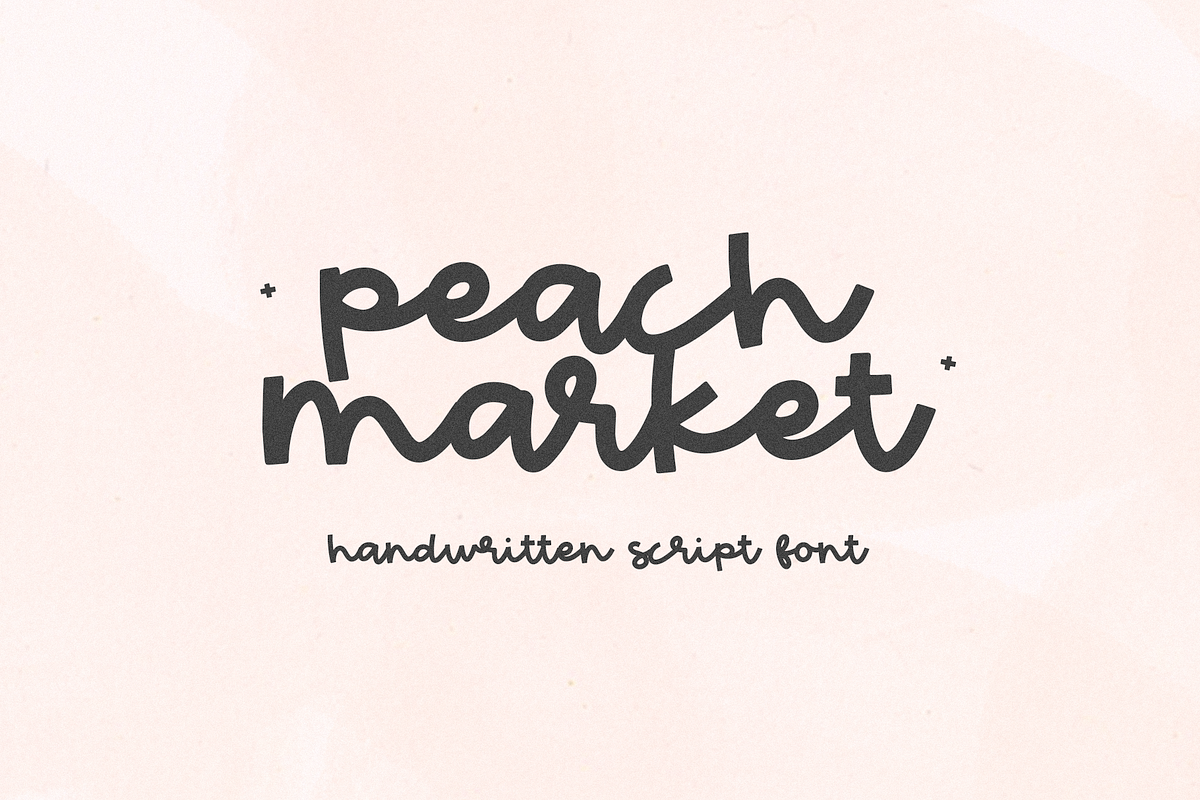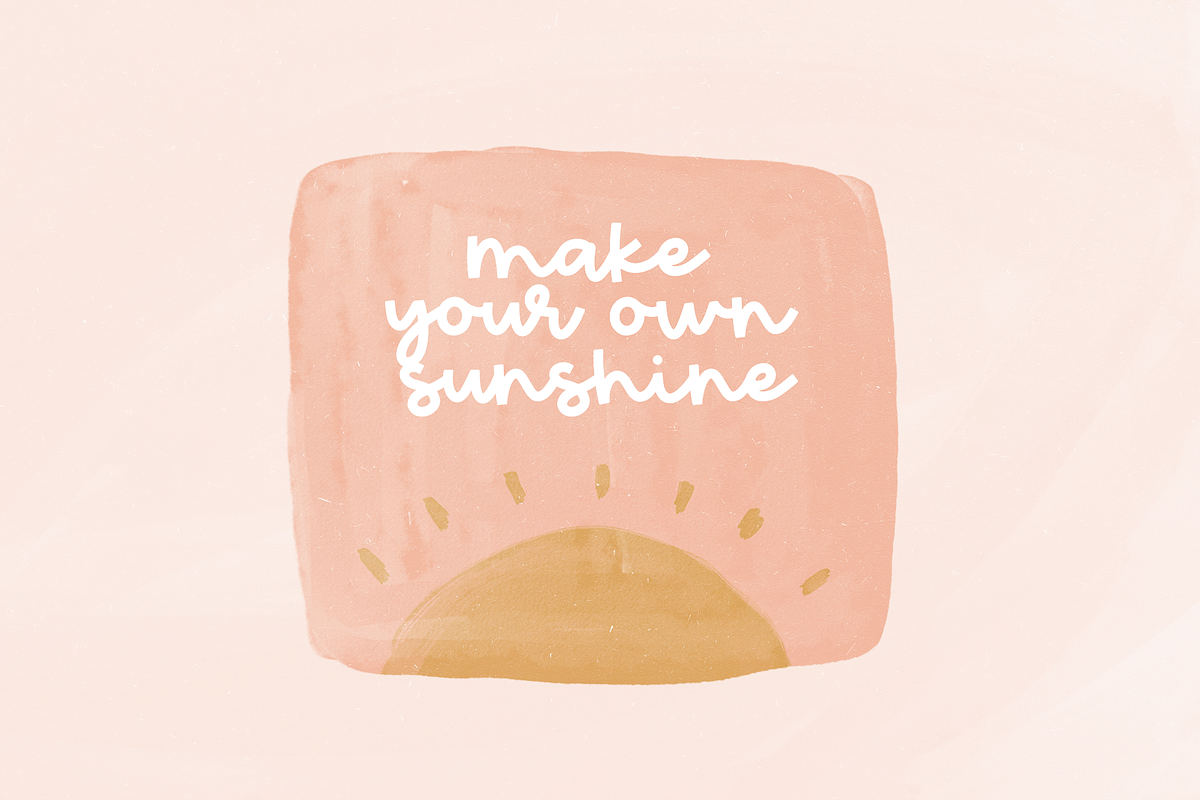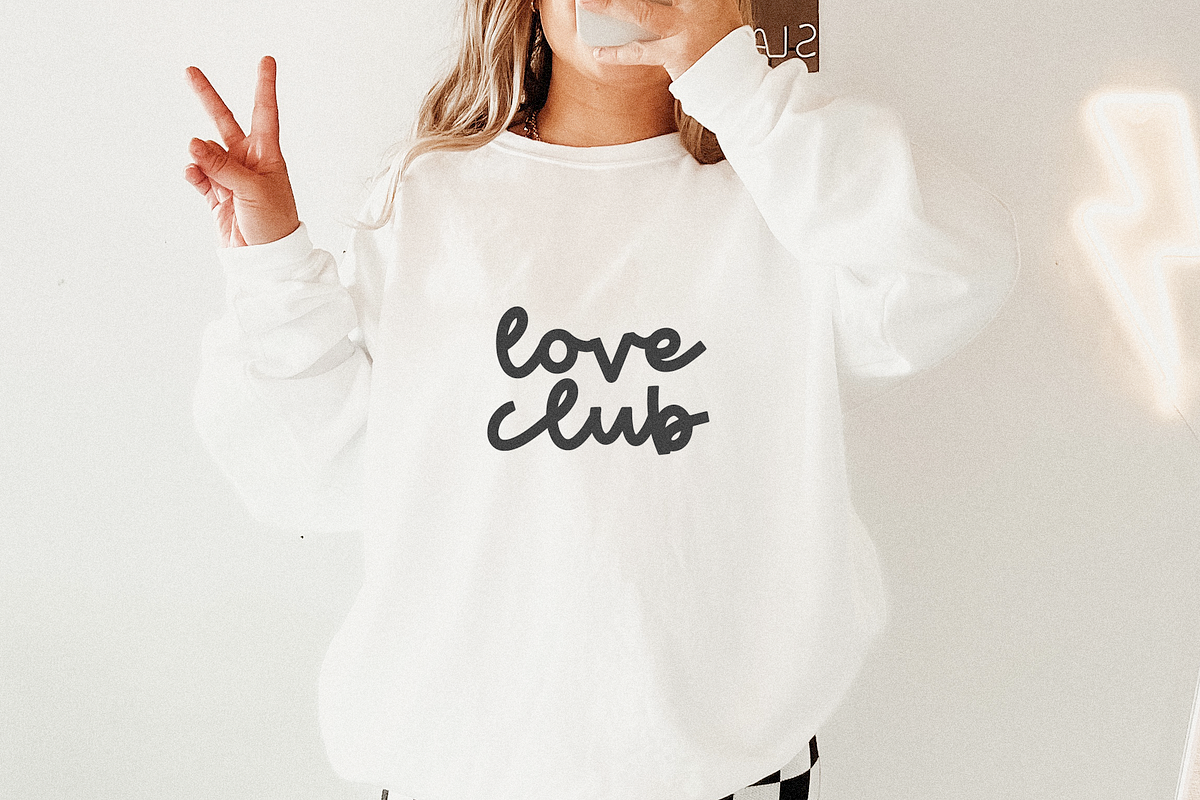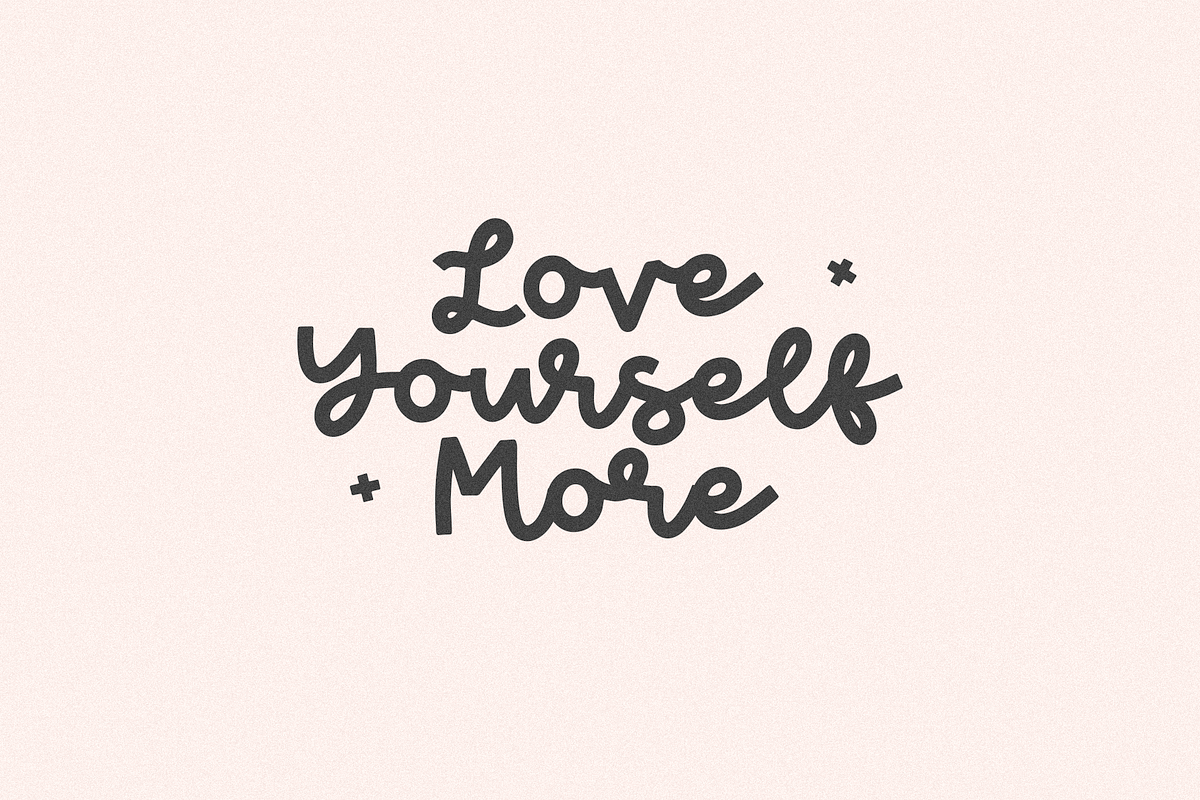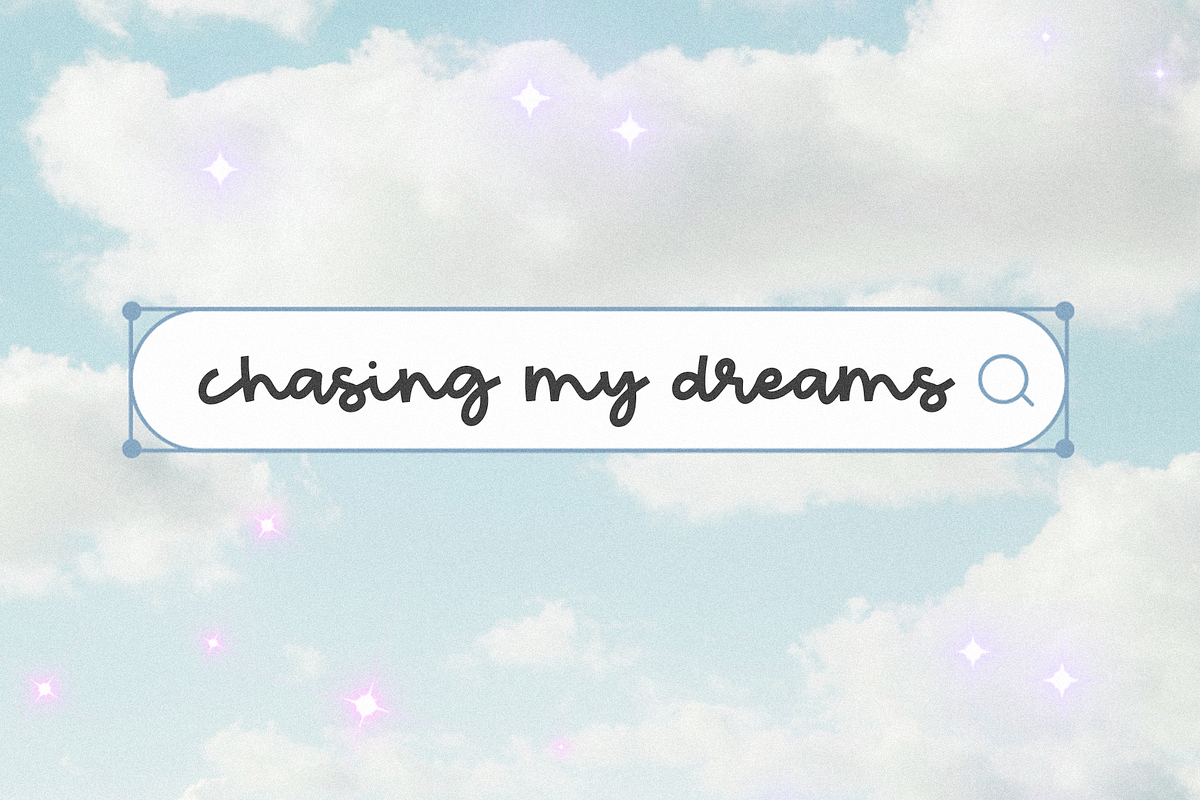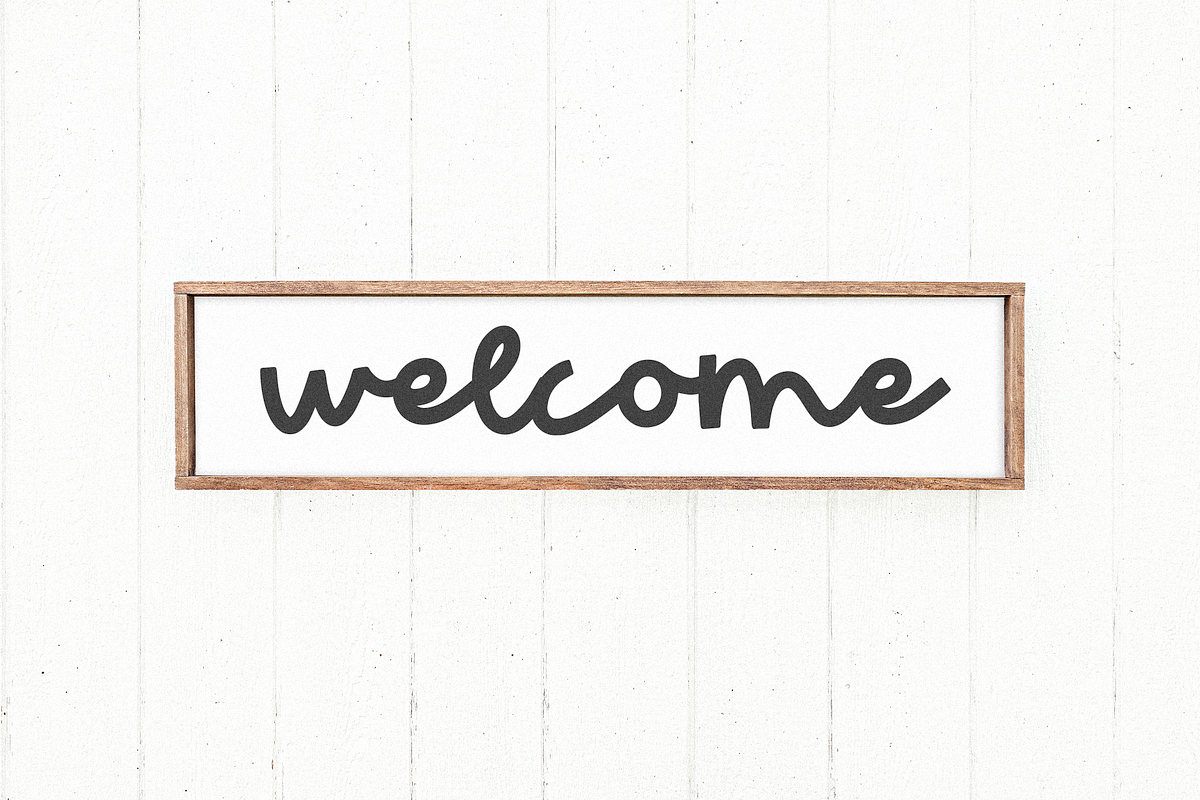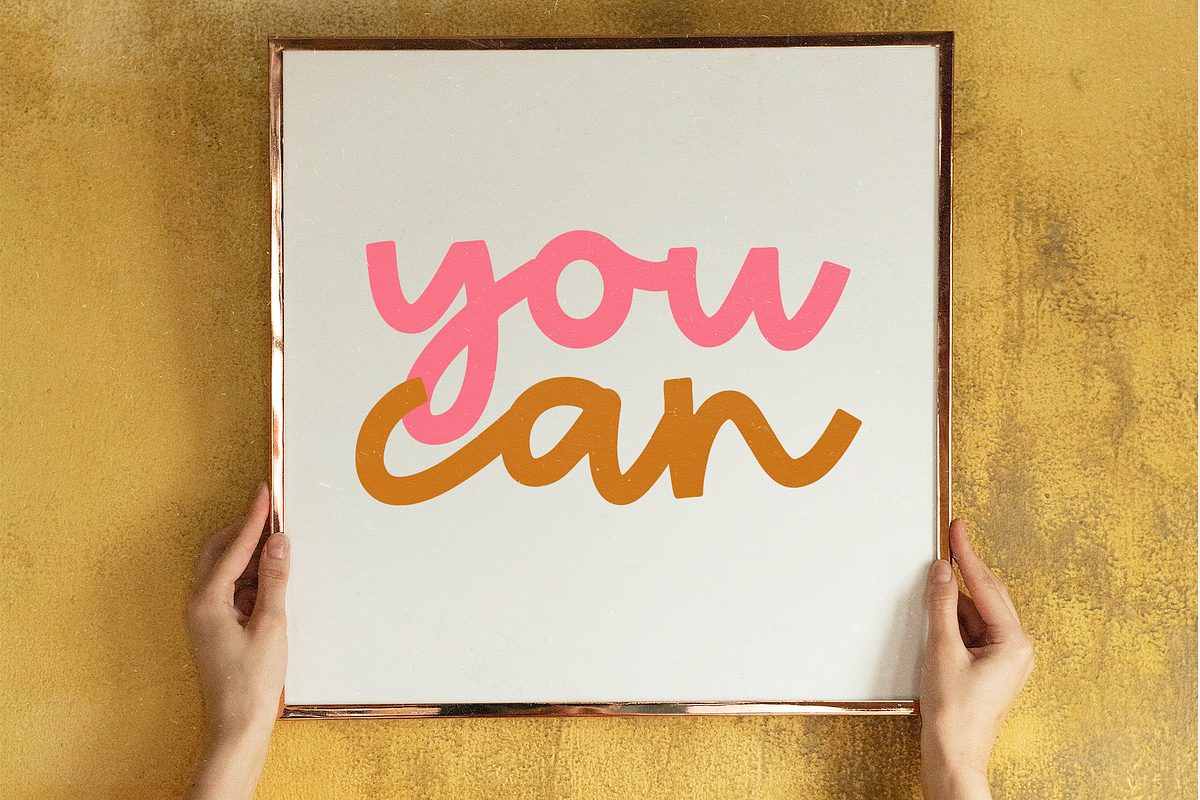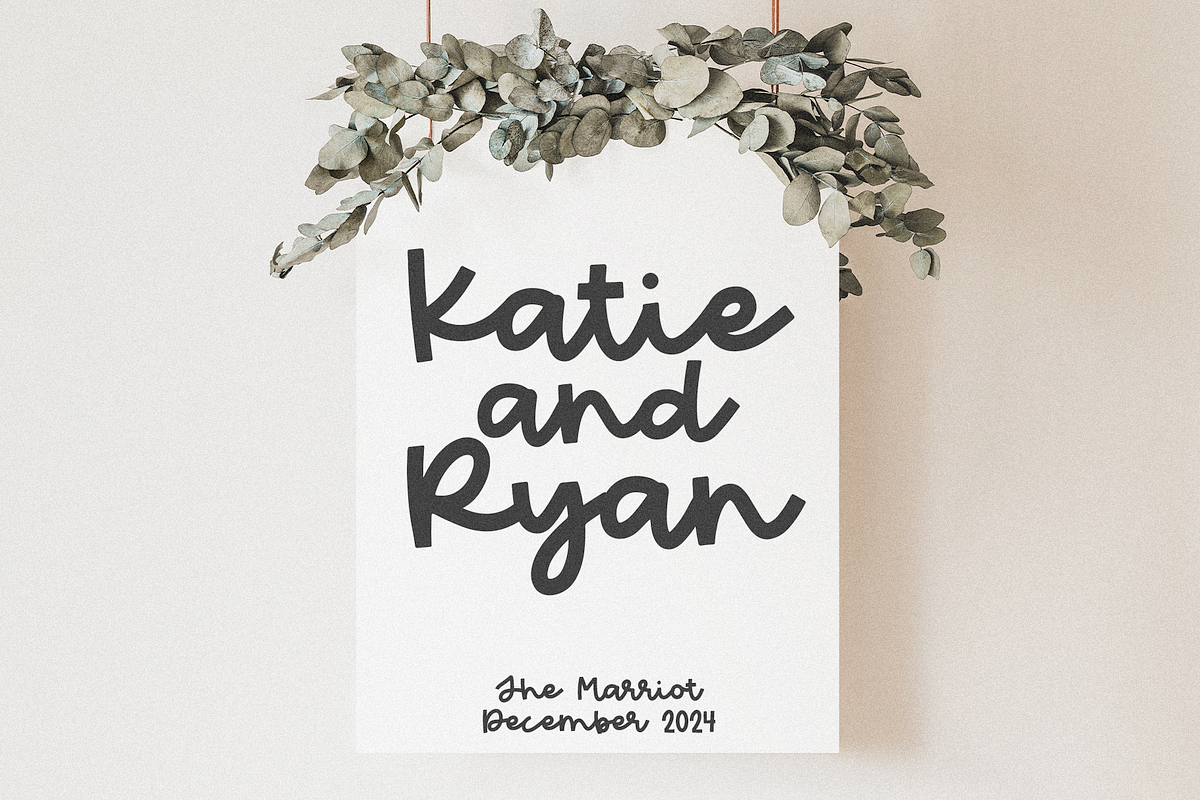
Peach Market | Cute Script Font
Peach Market is a cute handwritten script font.
This font is perfect for all of your craft projects, cricut projects, signs, branding, logos, shirts and more!
Peach Market | Cute Script Font by KA Designs fits naturally into Branding, posters, packaging, typography.